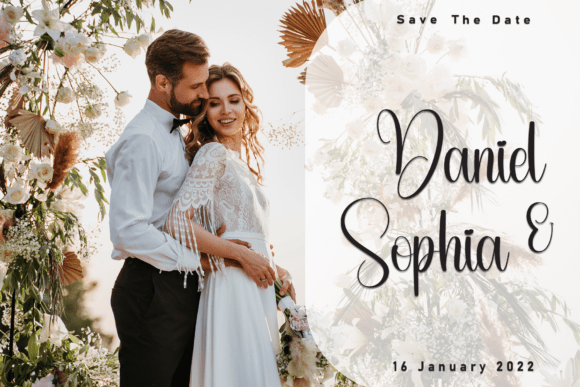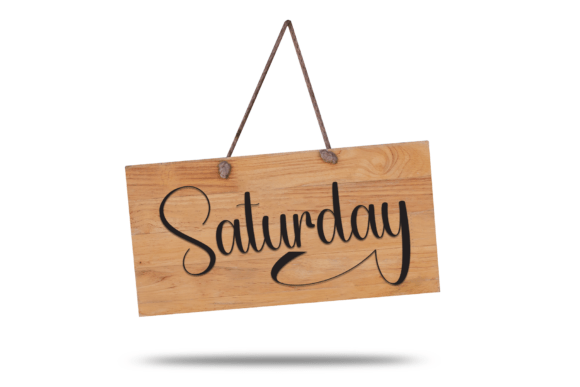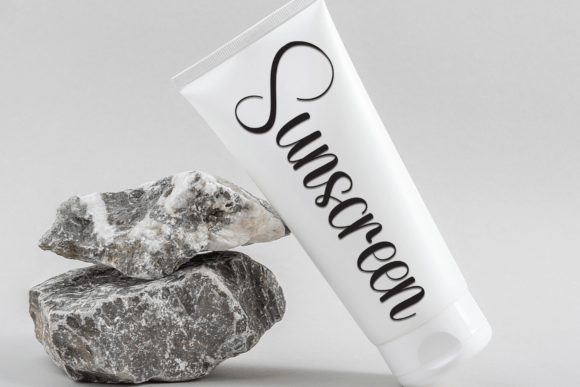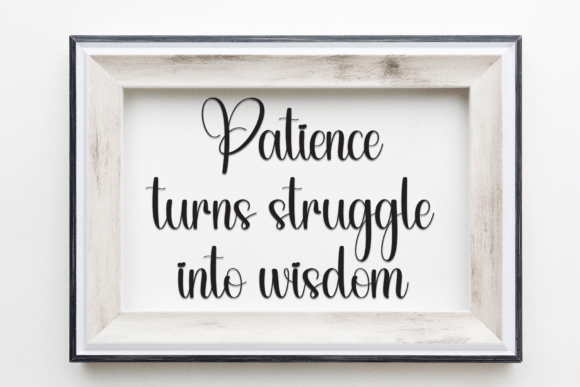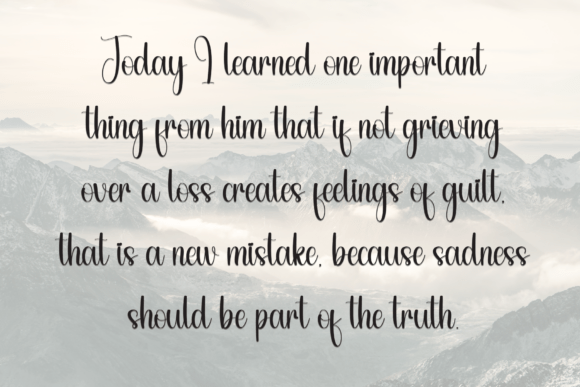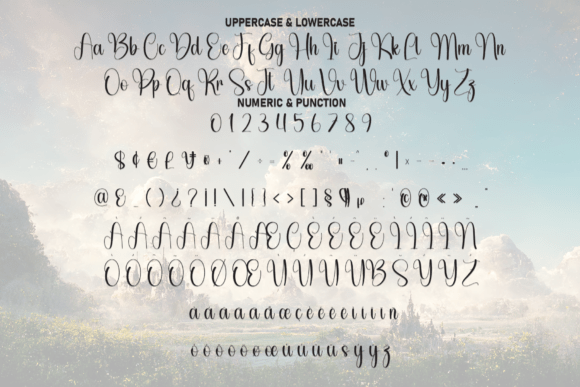
Unleashing the Magic of Fantasy Font: A Designer’s Dream Come True
I’ll never forget the moment I stumbled upon the Fantasy Font. I was working on a wedding invitation project for a client who wanted something that exuded elegance, playfulness, and a touch of whimsy. As I scrolled through my font library, I felt like I was on a mission to find the holy grail of typography. And then, I saw it – Fantasy Font. Its enchanting, handwritten display was like a breath of fresh air, and I knew I had found the perfect fit.
As a designer, I’m always on the lookout for fonts that can elevate my projects and make them stand out. Fantasy Font has become a staple in my collection, and here’s why:
- ✨ Effortless charm: This font exudes a sense of sophistication and playfulness that’s hard to find in other typography.
- ✅ Wide range of uses: From wedding invitations to greeting cards, and even social media graphics, Fantasy Font adapts seamlessly to various design tasks.
- 💫 Unique character: Each letter, punctuation, and glyph is meticulously designed to add a touch of magic to your projects.
Of course, no font is perfect, and Fantasy Font has a few quirks:
- 🤔 Limited suitability for body text: Due to its decorative nature, Fantasy Font works best as a display font or for short paragraphs.
- ⚠️ Occasional kerning issues: As with any font, some manual kerning adjustments might be necessary to achieve optimal results.
The Story Behind Fantasy Font: A Glimpse into the Designer’s Inspiration
According to the font’s creator, Fantasy Font was inspired by the whimsical world of fairy tales and mythology. The designer aimed to craft a typography that would transport users to a realm of enchantment and wonder. With its intricate details and elegant lines, Fantasy Font is a testament to the power of imagination and creativity.
| Font Name | Fantasy Font |
| What makes Fantasy Font unique? | Fantasy Font’s distinctive blend of elegance, playfulness, and whimsy sets it apart from other typography. |
| Is Fantasy Font suitable for body text? | While Fantasy Font can be used for short paragraphs, it’s primarily designed as a display font and may not be the best choice for lengthy body text. |